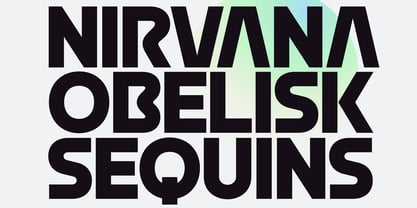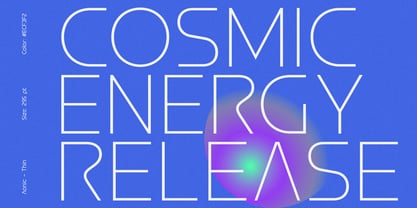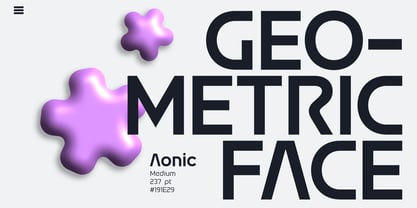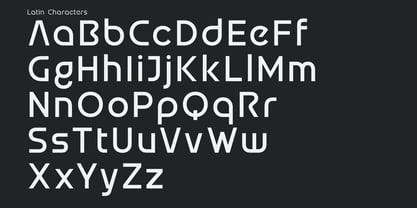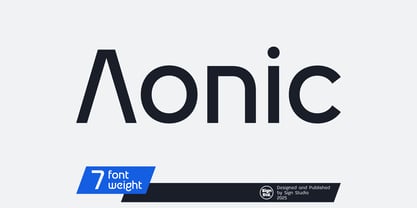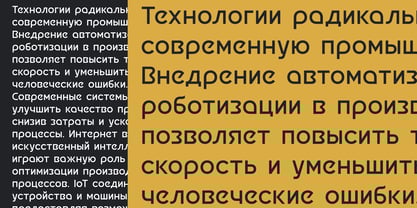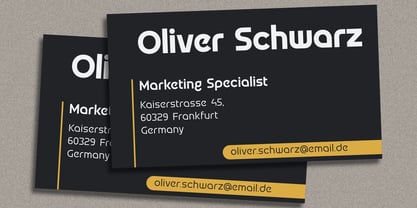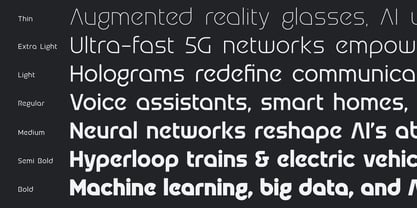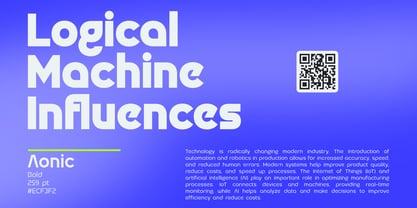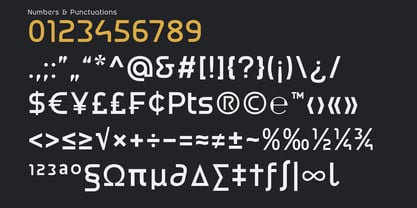
Aonic
Die Schriftfamilie Aonic wurde von Sugi Yanto entworfen und von Sign Studio veröffentlicht. Aonic enthält 7 Stile und Familienpaketoptionen.
Aonic font family, a sophisticated modern sans serif typeface that blends minimalism with Geometric shapes. With a clean face, Aonic offers a striking aesthetic that can be dynamically customized to meet a variety of creative needs. This exceptional typeface family features seven different weights, each available in the same level of body detail, giving designers flexibility in choosing letter thicknesses to create eye-catching, stand-out brand elements.
Aonic's elegant and refined style ensures high legibility, making it ideal for both print and digital applications. Whether you're designing a sleek website, an eye-catching poster, or a memorable logo, Aonic adapts easily, enhancing your message with contemporary style. Moreover, its extensive language support with the addition of Cyrillic characters ensures that your designs can reach a global audience without compromising on style.
Unlock the potential of your projects with Aonic, where modern design meets functionality. Experience the perfect balance of sophistication and clarity that will leave a lasting impression.